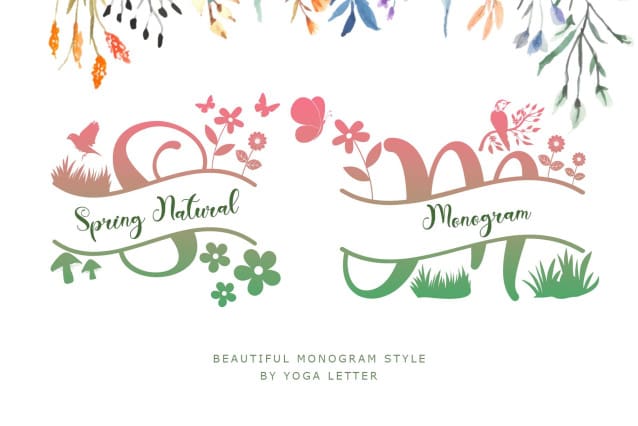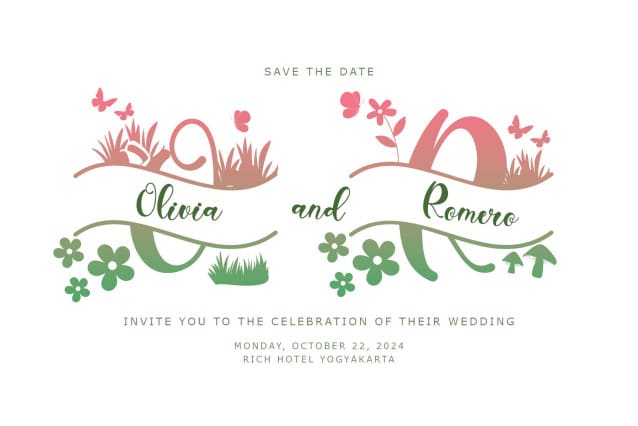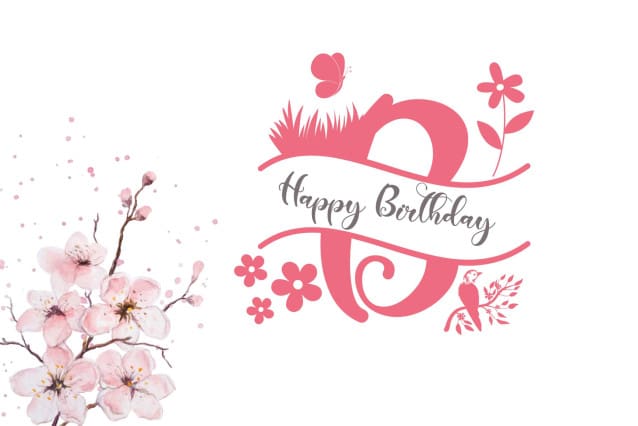
Spring Natural Monogram Font
Spring Natural Monogram Font is a beautiful and unique monogram font decorated with butterflies, birds, flowers, grass, mushrooms and others which add to the uniqueness of this font. Equipped with monograms, uppercase letters, lowercase letters, ligatures, numerals, punctuations and multilingual support. Very suitable for spring, summer, weddings, invitations and others.